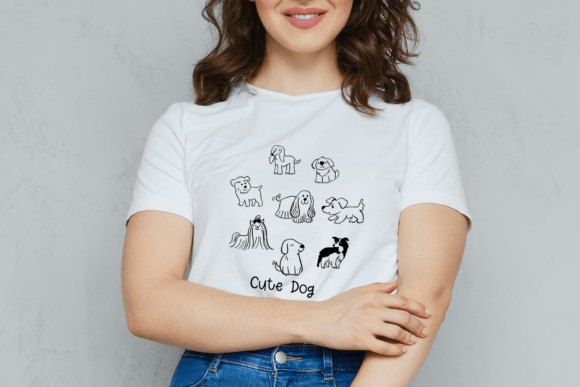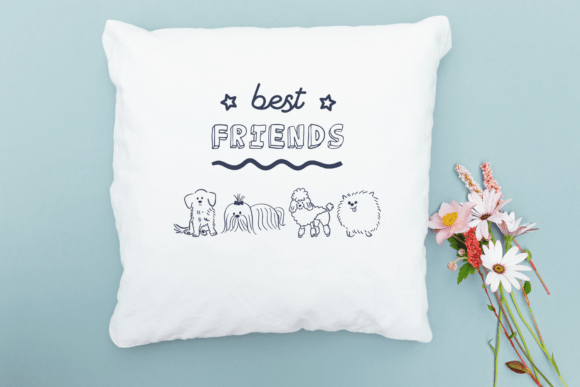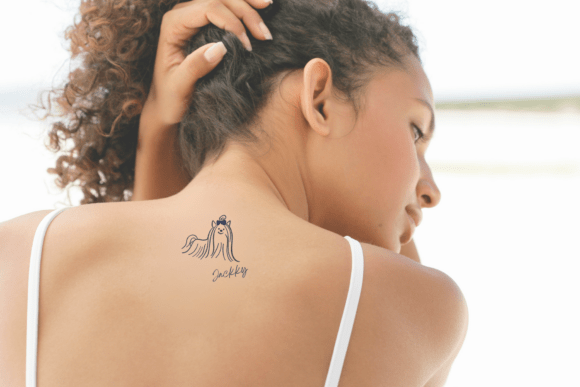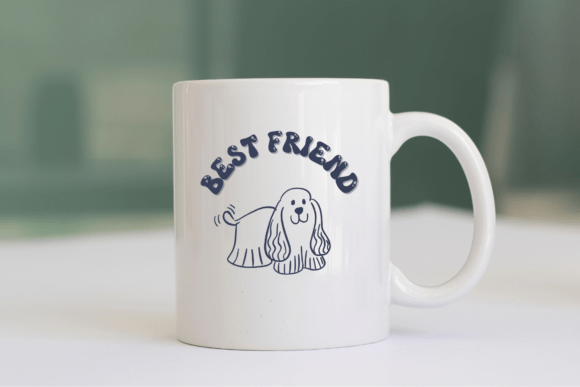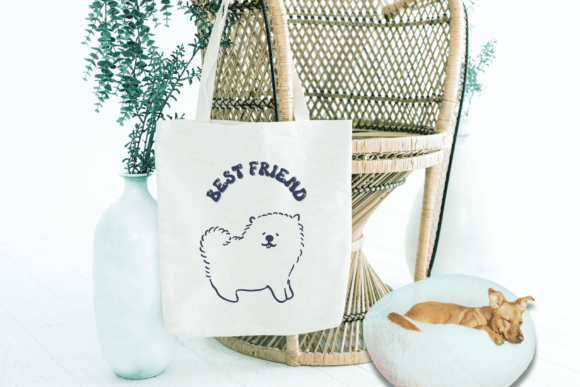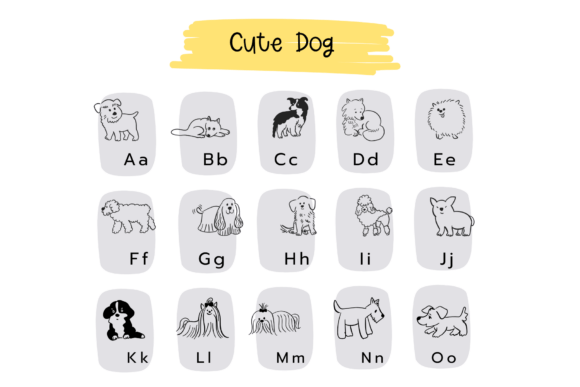
Introduction to Cute Dog Doodles Font
Have you ever found yourself stuck in a creative rut, desperately searching for the perfect design element to bring your project to life? As a designer, I’m sure you can relate to that moment when all you need is a tiny spark to ignite your imagination. For me, that spark often comes in the form of a quirky dingbats font that adds a touch of personality to my work.
Enter the adorable Cute Dog Doodles Font, a delightful design resource that’s sure to make your heart melt. This charming font is packed with an assortment of playful pups, bones, and paw prints, making it the paw-fect addition to any creative project. Whether you’re working on a kids’ craft, pet branding, or a sticker design, this font is sure to bring a smile to your face.
Key Features of Cute Dog Doodles Font
- High-quality design resource ideal for creative projects, offering a unique and playful touch.
- Perfect for designers and artists working on projects that require a cute and whimsical touch, such as children’s books, greeting cards, and social media graphics.
Honest Review: Cute Dog Doodles Font
I recently stumbled upon the Cute Dog Doodles Font, and I must say it’s a delightful addition to any creative project. This adorable font is perfect for those who love dogs and want to add a playful touch to their designs.
- ✨ High-quality illustrations of cute dogs that are sure to bring a smile to anyone’s face.
- ⚠️ Limited character set, which may not be suitable for longer texts or complex designs.
- ⚠️ Not ideal for professional or formal designs, as it’s more suited for casual or playful projects.
Overall, I think the Cute Dog Doodles Font is a great design resource for those who want to add a lighthearted touch to their work. While it may have some limitations, it’s a fun and high-quality font that’s perfect for creative projects.
Cute Dog Doodles Font is ideal for a variety of creative projects, including children’s books, pet-themed designs, and social media graphics. It’s also a great resource for designers looking to add a playful touch to their designs.